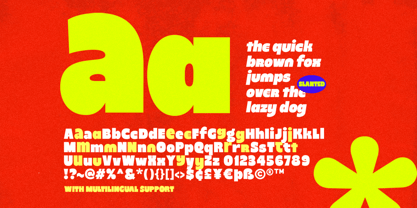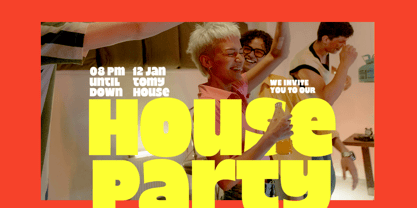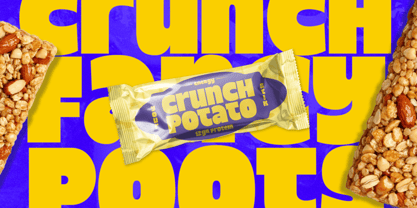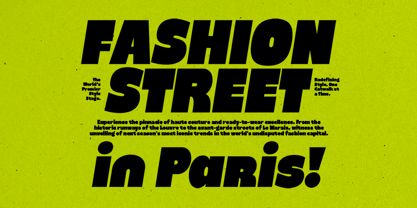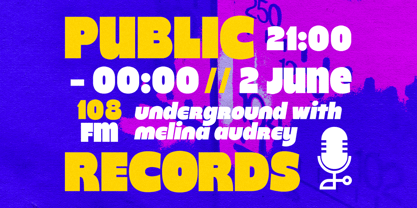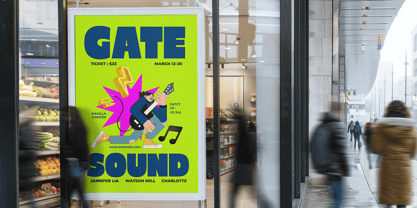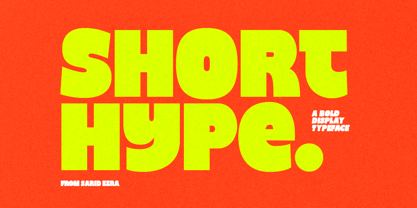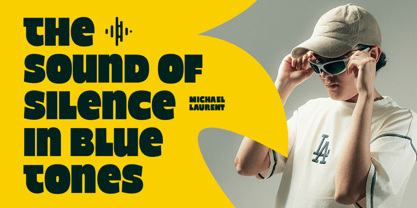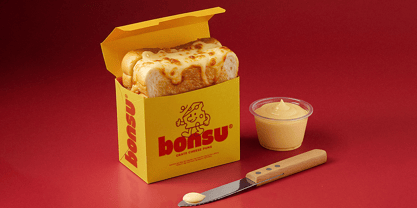
Short Hype
by Sarid Ezra
The Short Hype Font Family was designed by Sarid Ezra and published by Sarid Ezra. Short Hype contains 2 styles and family package options. More about this family
Short Hype is a big and bold display sans with unique alternates. You can use the alternates along with the standard characters to make your designs looks trendy and modern. You can use this font for any purposes such as poster, logotype, fashion magazine, street art, or any project that needs contemporary and strong looks. Comes with italic version, this font also support multi language.